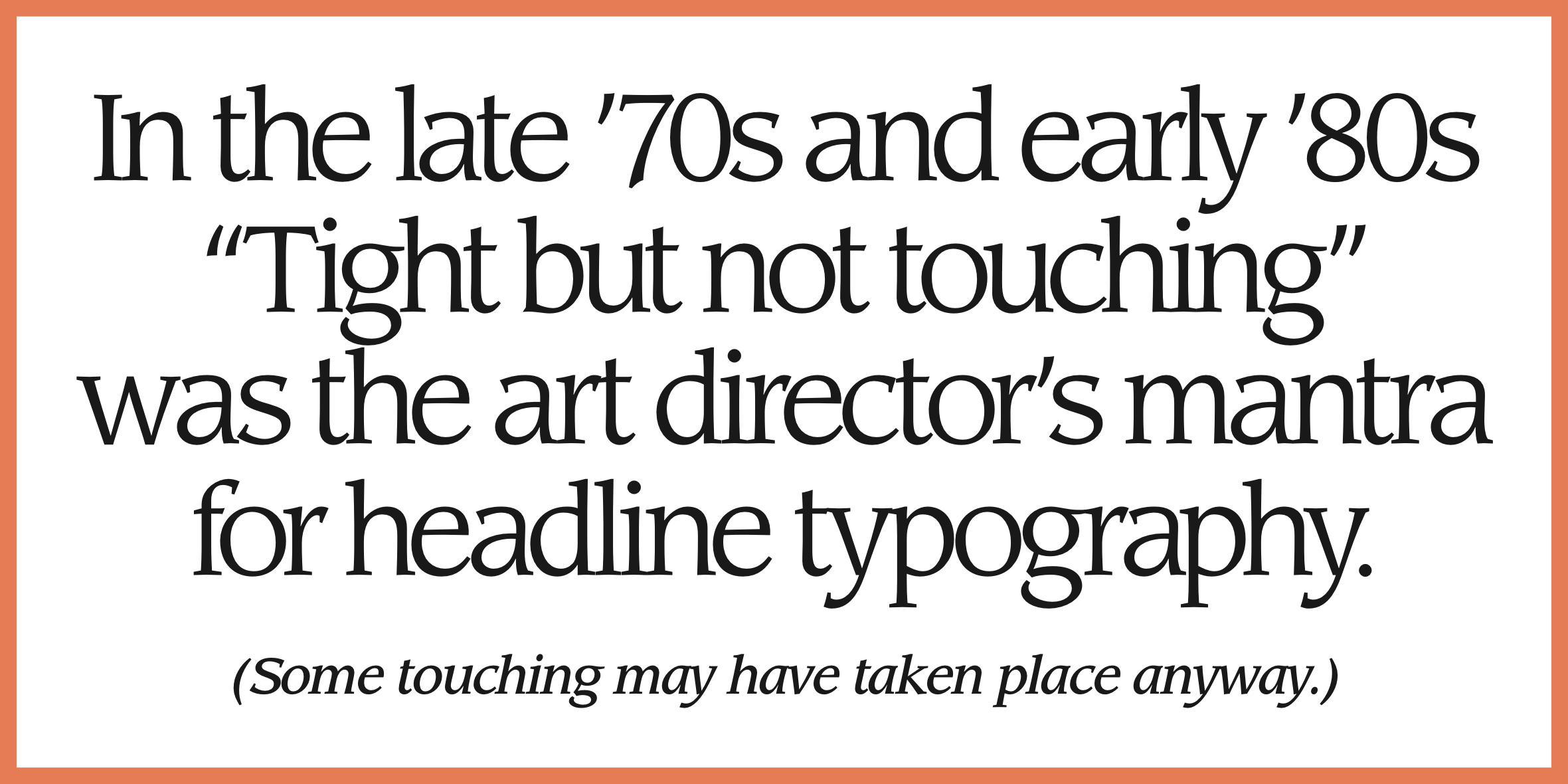
ITC Leawood Font is a distinguished and exceptionally versatile typeface, perfectly suited for projects that demand a blend of classic warmth, outstanding readability, and sophisticated elegance. Imagine it forming the core typography for extensive editorial content in magazines and newspapers, providing clear and inviting text for corporate annual reports, or enhancing the user experience of digital publications and e-learning platforms. It's also an excellent choice for crafting traditional book designs, ensuring clarity in complex technical documentation, or bringing a polished and authoritative presence to high-end branding and professional presentations. If you're looking for a font that combines timeless aesthetics with unparalleled functional excellence, ITC Leawood Font is an outstanding selection.
What makes ITC Leawood Font so exciting? It’s its meticulous design, balancing traditional serif characteristics with subtle humanist touches, which allows it to be incredibly adaptable for a wide array of applications. This font boasts expertly crafted letterforms and optimized spacing that ensure exceptional readability across various sizes and mediums, from crisp digital displays to high-resolution printed materials. Its clean serifs, open counters, and inviting character make it highly comfortable for extended reading, supporting content without distraction while conveying a sophisticated and reliable sensibility. Designers will appreciate its understated elegance and its ability to lend an air of professionalism and warmth to any project, making it a highly dependable choice for achieving a polished and distinguished outcome.
The ITC Leawood Font family is typically designed with a comprehensive range of weights and styles to provide maximum flexibility for designers, often boasting an extensive character set suitable for global applications. You can generally expect to find numerous variations such as Light, Regular, Medium, SemiBold, Bold, and Black, accompanied by matching italic versions for each. This extensive family ensures that ITC Leawood Font can be used to create sophisticated typographic hierarchies, maintain consistent branding across diverse mediums, and offer flexible design solutions for both print and digital environments. Discover the unwavering clarity and classic elegance of ITC Leawood Font Free Download for your next significant project.